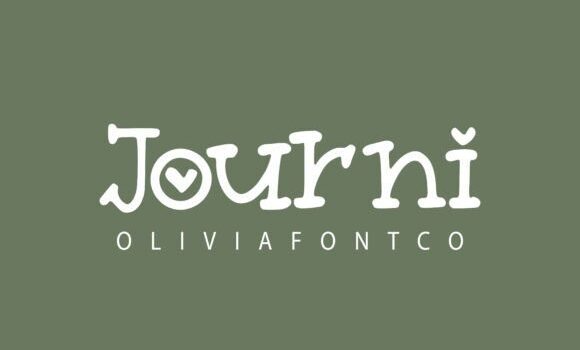
Journi Font – Free Download Introduction to Journi Font Journi font is an authentic handwritten font with a romantic touch. 📸 Preview Gallery 2 images 📌 Product Name Journi Font 👤 Author OliviaFontCo 📂 Category Explore ⬇️ Download Journi Font